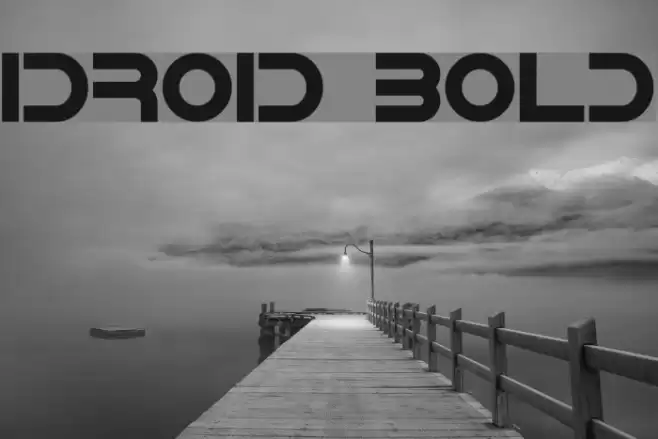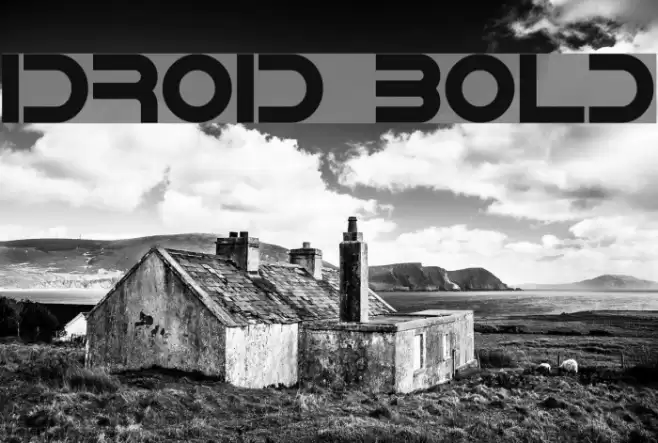
IDroid Bold Font
IDroid Bold Description
This font features a bold, futuristic design with geometric shapes and a strong presence. The characters are constructed with a combination of straight lines and curves, creating a unique and modern aesthetic. The uppercase and lowercase letters maintain a consistent style, with a uniform thickness that adds to the boldness of the font. The numbers and special characters are designed to match the overall theme, providing a cohesive look across all elements. The font's distinct style makes it suitable for projects that require a modern and tech-inspired appearance.
A bold, futuristic font with geometric shapes and a modern aesthetic from Uncategorized fonts.